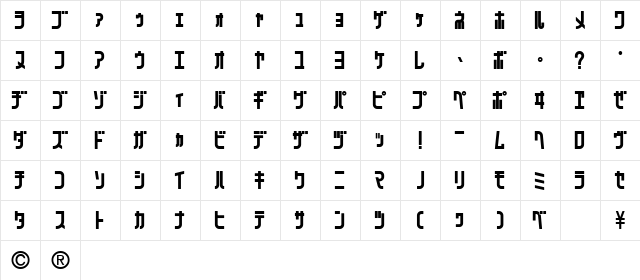
071MKSDKTBold Regular Font Preview
071MKSDKTBold Regular
Design Context for 071MKSDKTBold Typeface
071MKSDKTBold offers clean, dependable letterforms without strong stylistic allegiance, making it a practical choice for designers who need flexibility. Its bold stroke weight gives it real presence on the page.